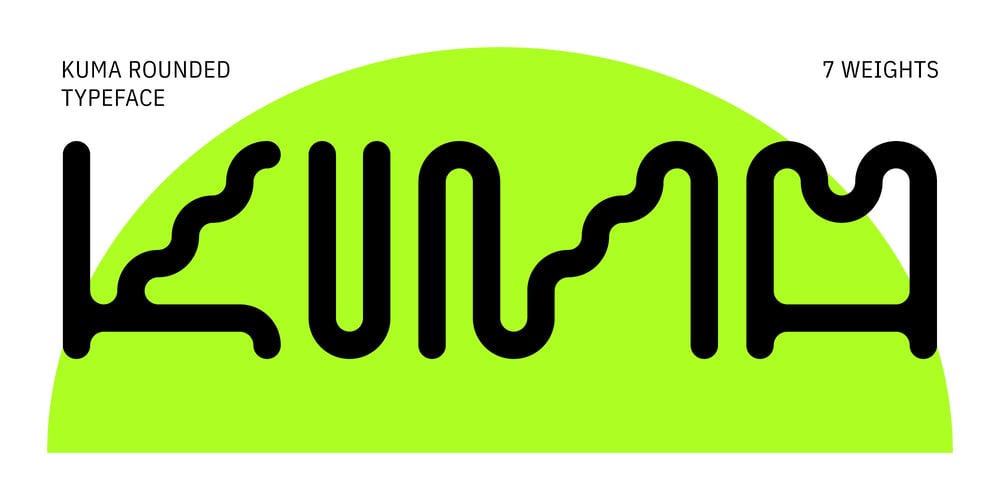
Kuma Rounded Font Family was designed by Jérémy Ruiz and published by L’île Foundry. Kuma Rounded contains 7 styles and family package options. In Ancient Greek, Kuma means wave.This wavy, dynamic and poetic all-caps display typeface is useful for headlines or short texts.Kuma is the result of a graphic and perceptual game that, using experimentation as a working method, explores the possibilities of writing as an image. This grid-based typeface creates different shapes and directions, never predictable.There are different types of waves created by the wind. That’s why there are three different versions of Kuma: Kuma, Kuma Rounded and Kuma Square. Each version is available in seven weights which can be combined together. In their black and white rhythm, they guarantee global readability and balance.Kuma Rounded was designed by Jérémy Ruiz.Supported languages: Afrikaans, Albanian, Basque, Bosnian, Breton, Catalan, Croatian, Czech, Danish, Dutch, English, Esperanto, Estonian, Faroese, Fijian, Finnish, Flemish, French, Frisian, German, Greenlandic, Hawaiian, Hungarian, Icelandic, Indonesian, Irish, Italian, Latin, Latvian, Lithuanian, Malay, Maltese, Maori, Moldavian, Norwegian, Polish, Portuguese, Provençal, Romanian, Romany, Sámi (Inari), Sámi (Luli), Sámi (Northern), Sámi (Southern), Samoan, Scottish Gaelic, Slovak, Slovenian, Sorbian, Spanish, Swahili, Swedish, Tagalog, Turkish, Welsh.